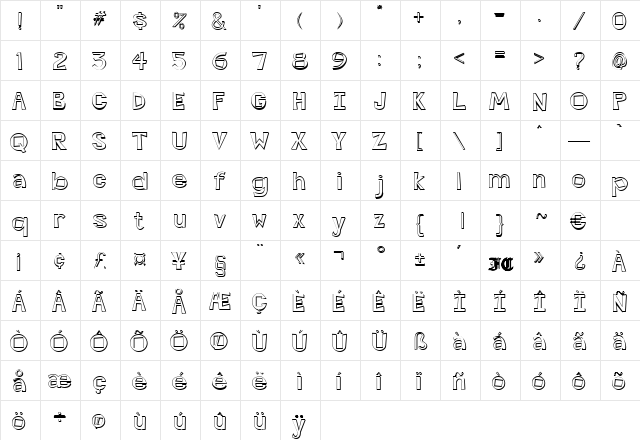
OnedinOutline Regular
Design Context for OnedinOutline Typeface
OnedinOutline is built around its visual character rather than neutral utility — its distinctive forms are designed to make an impression at display sizes.
Font Pairing: Pair with a clean neutral sans-serif for body copy to let OnedinOutline's character lead without overwhelming the composition.
Pro Tip: Use OnedinOutline exclusively at display sizes — it was designed to be seen, not read at length. Let a neutral companion handle body copy.